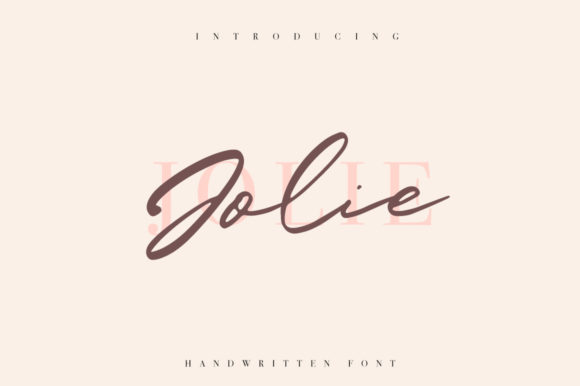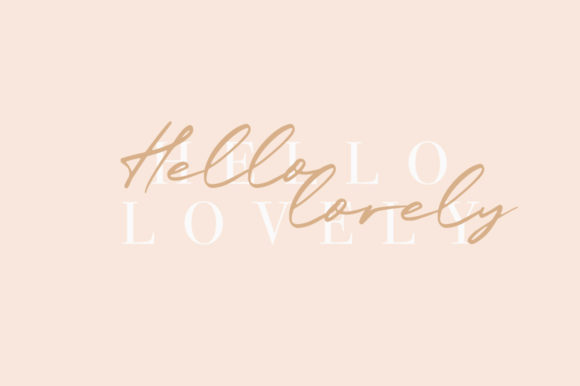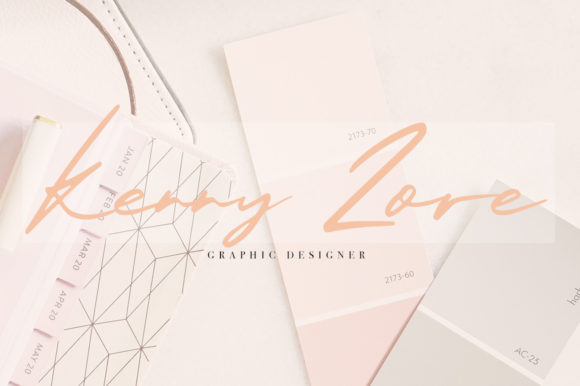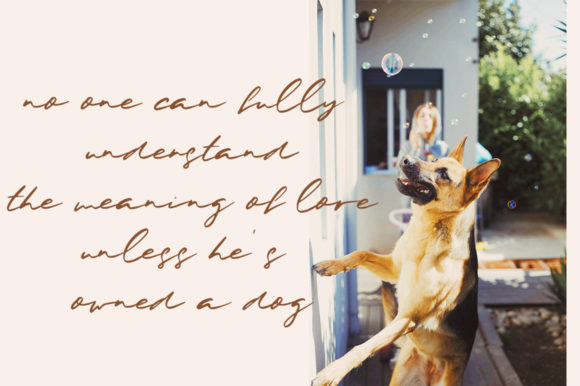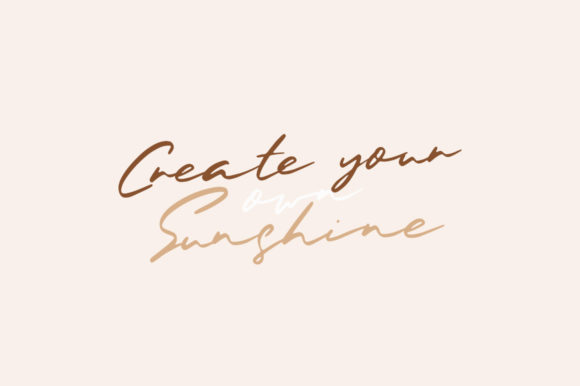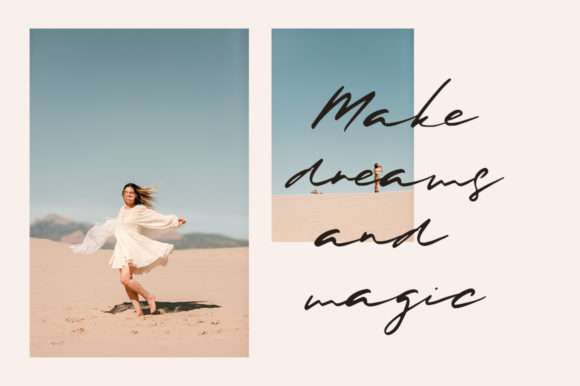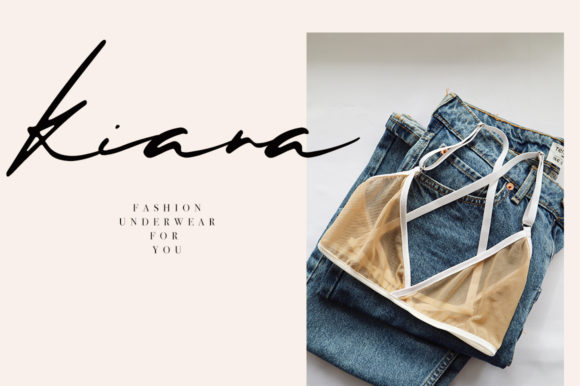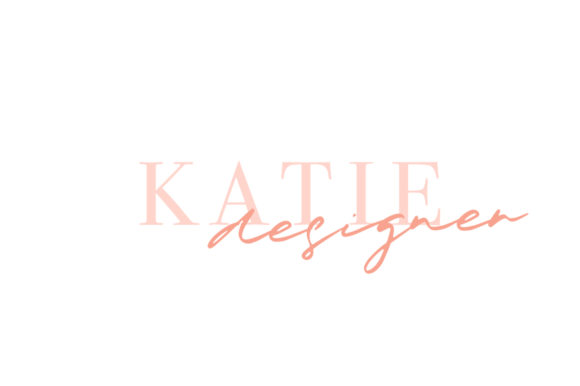
HomeScript FontsJolie Font Script Fonts Jolie Font FacebookXPinterestWhatsApp Jolie Font Poster 2 Jolie Font Poster 3 Jolie Font Poster 4 Jolie Font Poster 5 Jolie Font Poster 6 Jolie Font Poster 7 Jolie Font Poster 8 About Jolie Font Jolie is a gorgeous script with a light and charming feel. Fall in love with its contemporary charm! DOWNLOAD ON CREATIVE FABRICAThis font is sold and delivered by Creative Fabrica. Font Canyon may earn a commission if you buy through this link. People also explored Deisy Font Cholane Font Humback Whale Font Hani Christmas Monogram Font Amazing Easter Duo Font Borsigiana Font Sunday Smoothie Font Linoblox Font Akhunta Juancia Font 412 0 TagsJolie Font Previous articleRossalia Shine FontNext articleFillmade Font LEAVE A REPLY Cancel reply Comment: Please enter your comment! Name:* Please enter your name here Email:* You have entered an incorrect email address! Please enter your email address here Website: Save my name, email, and website in this browser for the next time I comment. Personal Use Free Elsabetha Personal Use Free Read more about this font Delions Personal Use Free Read more about this font Valentine Chips Personal Use Free Read more about this font Zeshane Personal Use Free Read more about this font BLOG Best Fonts for T-Shirt Design – Top 2025 Picks In 2025, t-shirt design has become more than just fashion—it's a form of self-expression. Whether you're... Free vs Paid Fonts: Why Investing in Premium Fonts Is Worth It To increase your work productivity, choose the most readable fonts. Top 7 Google Fonts Alternatives for Faster and Privacy-Friendly Web Design (2025)